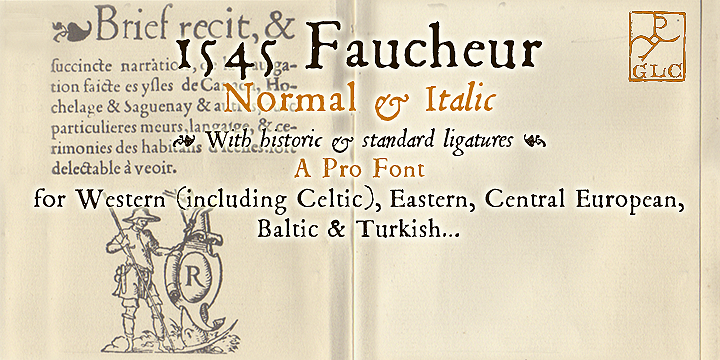
1545 Faucheur Font is perfect for historical manuscript reproductions, Renaissance-themed designs, medieval event materials, classical literature publications, heritage museum exhibits, period drama titles, traditional craftsmanship branding, antique book reproductions, scholarly historical texts, and authentic period documentation.
1545 Faucheur Font is exciting because it authentically captures the essence of 16th-century European typography and Renaissance craftsmanship through its historically accurate letterforms that transport modern audiences back to the golden age of printing while delivering messages with scholarly authenticity and period precision.
1545 Faucheur Font family includes Regular, Bold, Light, Manuscript, Italic, Condensed, Ornamental, and Blackletter variations, offering designers a complete historical toolkit to create authentic period communications that honor Renaissance typography traditions and medieval scholarly heritage.
1545 Faucheur Font embodies the scholarly traditions and typographic mastery of Renaissance Europe, making it an invaluable resource for historians, educators, and cultural institutions that seek to preserve and celebrate the intellectual heritage of the 16th century. This historically significant typeface brings period authenticity to any design project, whether you're developing museum exhibitions, creating educational materials about Renaissance history, or designing reproductions of classical texts. The meticulously researched character design of 1545 Faucheur Font Free Download ensures historical accuracy while maintaining excellent readability for contemporary audiences seeking to connect with the intellectual traditions of European Renaissance scholarship and printing craftsmanship.
Cultural institution professionals consistently choose 1545 Faucheur Font for museums, libraries, and historical societies because of its ability to communicate scholarly authority and authentic connection to Renaissance intellectual traditions. The font's period-accurate appearance makes it particularly effective for targeting educated audiences and creating immersive historical experiences that honor the legacy of early European printing.
1545 Faucheur Font excels in educational and publishing applications where historical authenticity and scholarly credibility are paramount. Renaissance studies programs, classical literature publishers, and historical research institutions rely on this font to create materials that transport readers to the intellectual world of 16th-century Europe.
The luxury and artisanal sectors have embraced 1545 Faucheur Font for traditional craftsmanship brands, heritage publishing houses, and premium cultural products. Its authentic historical character helps businesses create marketing materials that communicate timeless quality and connection to centuries-old traditions of European craftsmanship, appealing to consumers who value historical authenticity and cultural heritage in their lifestyle choices.